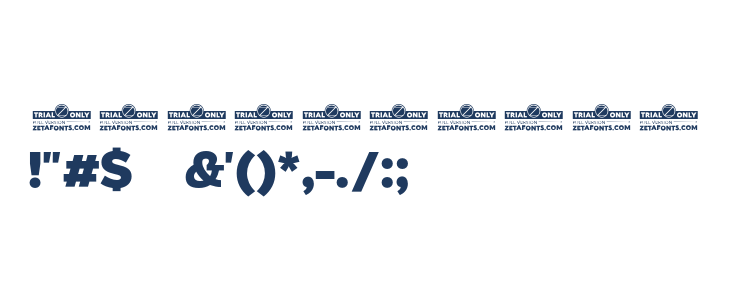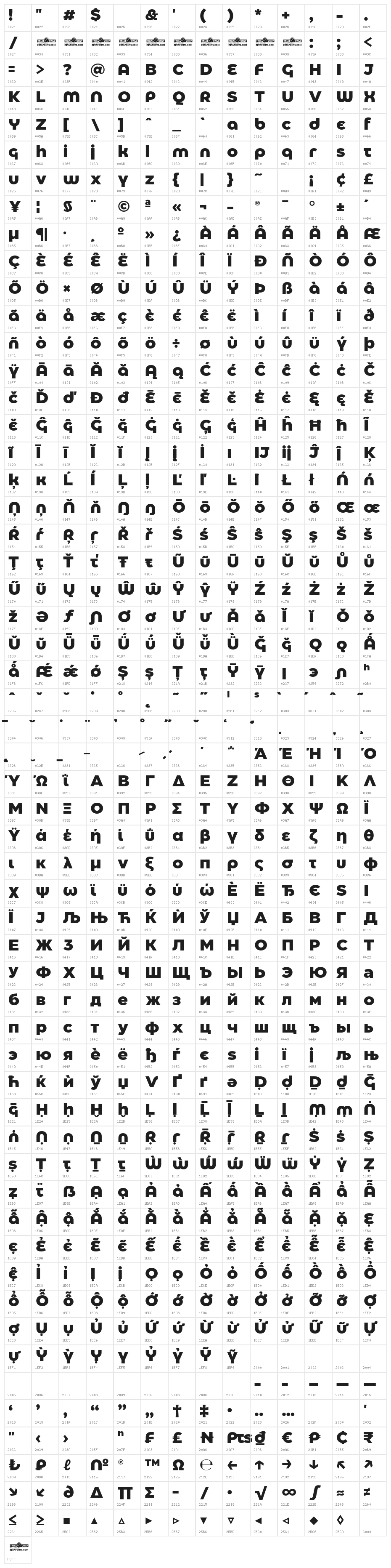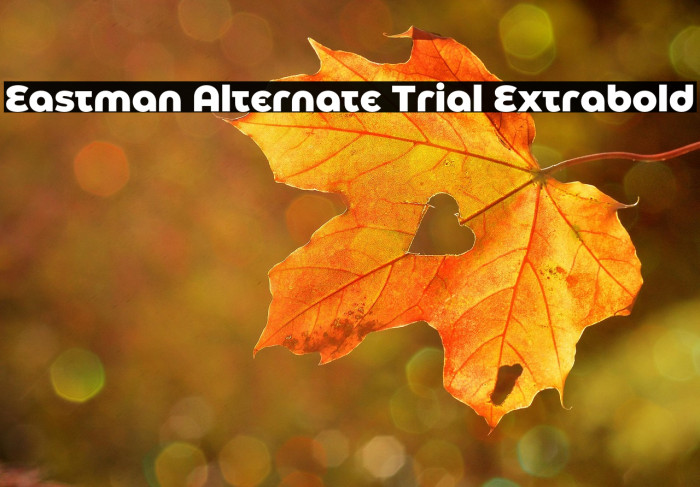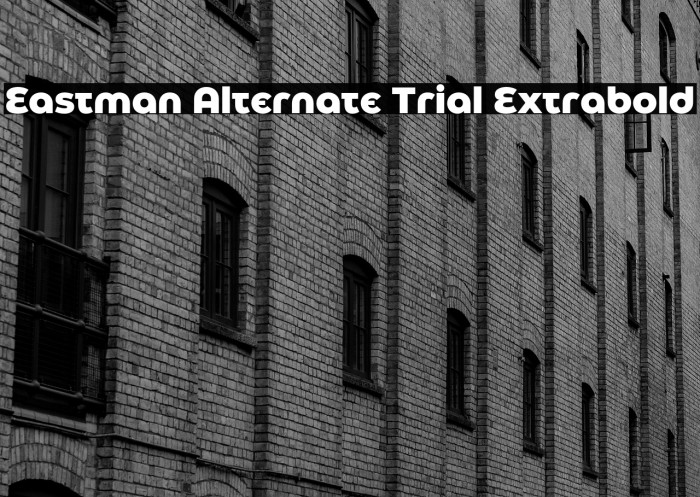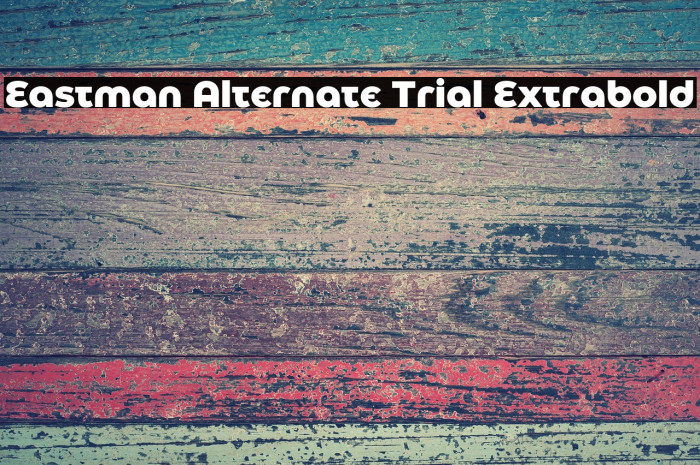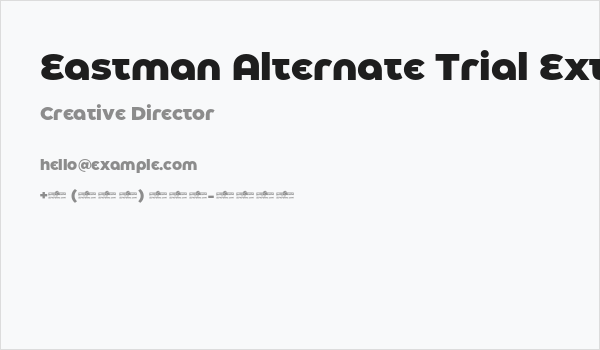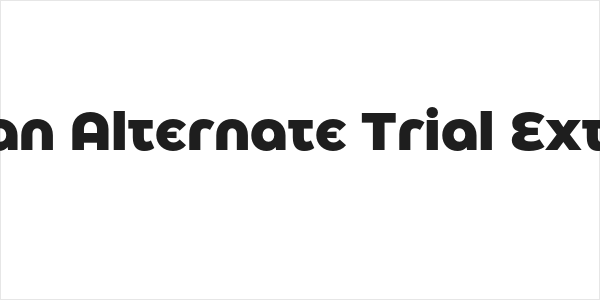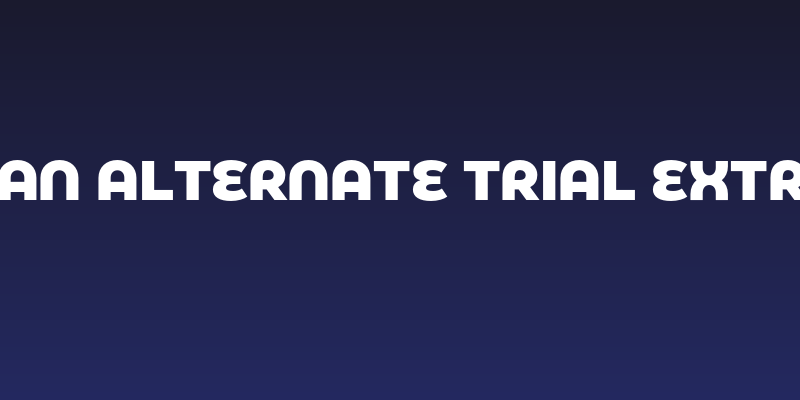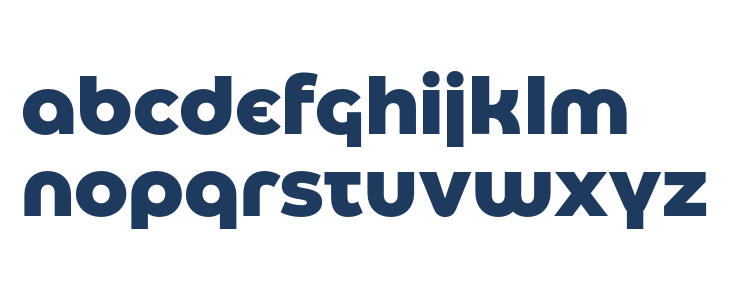
Eastman Alternate Trial Extrabold Font
Eastman Alternate Trial Extrabold Description
This font features a bold and assertive style with a modern touch, characterized by its thick, uniform strokes and rounded edges. The uppercase letters are particularly striking, with a geometric influence that gives them a strong presence. The lowercase letters maintain a consistent weight, ensuring readability while adding a touch of playfulness. The numerals and special characters are designed to match the boldness of the alphabet, making them suitable for impactful designs. Overall, the font's design is clean and contemporary, making it versatile for various applications.